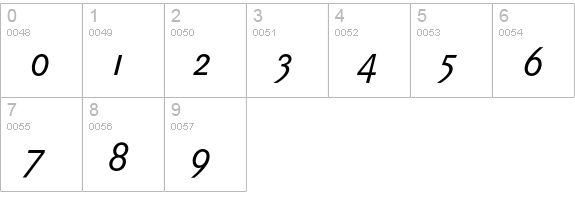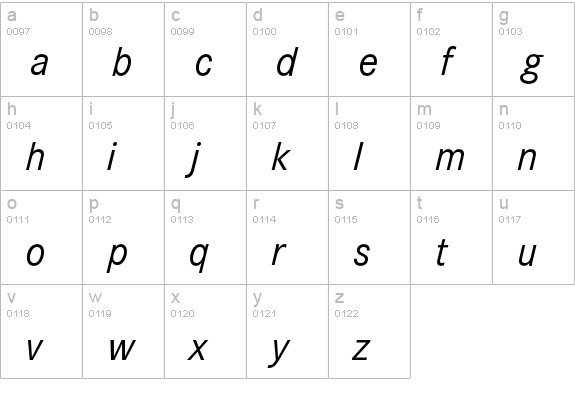
Corporate S BQ Expert Italic OsF Font Details
Corporate S BQ Expert Italic OsF is a distinctive, italic variant in the Corporate typeface family \xE2\x80\x94 well suited to design and typography projects.
Introducing Corporate S BQ Expert Italic OsF font - a sleek and professional typeface designed for corporate and business use. This modern font features a sophisticated italic style with enhanced readability, making it perfect for presentations, reports, and branding materials. The clean lines and elegant curves of Corporate S BQ Expert Italic OsF exude professionalism and style, making it a versatile choice for any project. And the best part? This high-quality font is available for free download at FontsMarket.com. Simply visit the website to access this premium typeface and elevate your designs with the timeless appeal of Corporate S BQ Expert Italic OsF. Don't miss out on this opportunity to enhance your visual communication with a font that combines functionality and elegance effortlessly. Download it now and take your projects to the next level!